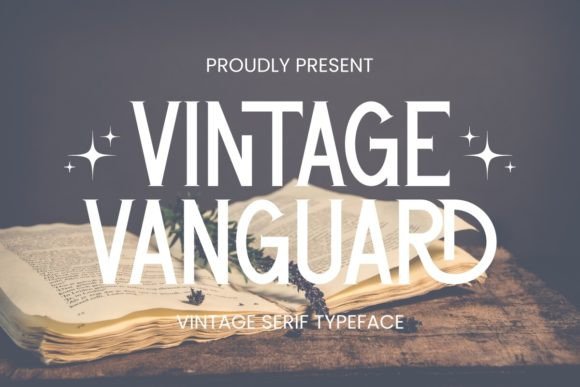
Download Vintage Vanguard Font for free! Created by Masyafi Studio and published by Aron Reynolds, this slab serif font family is perfect for adding a unique touch to your designs.